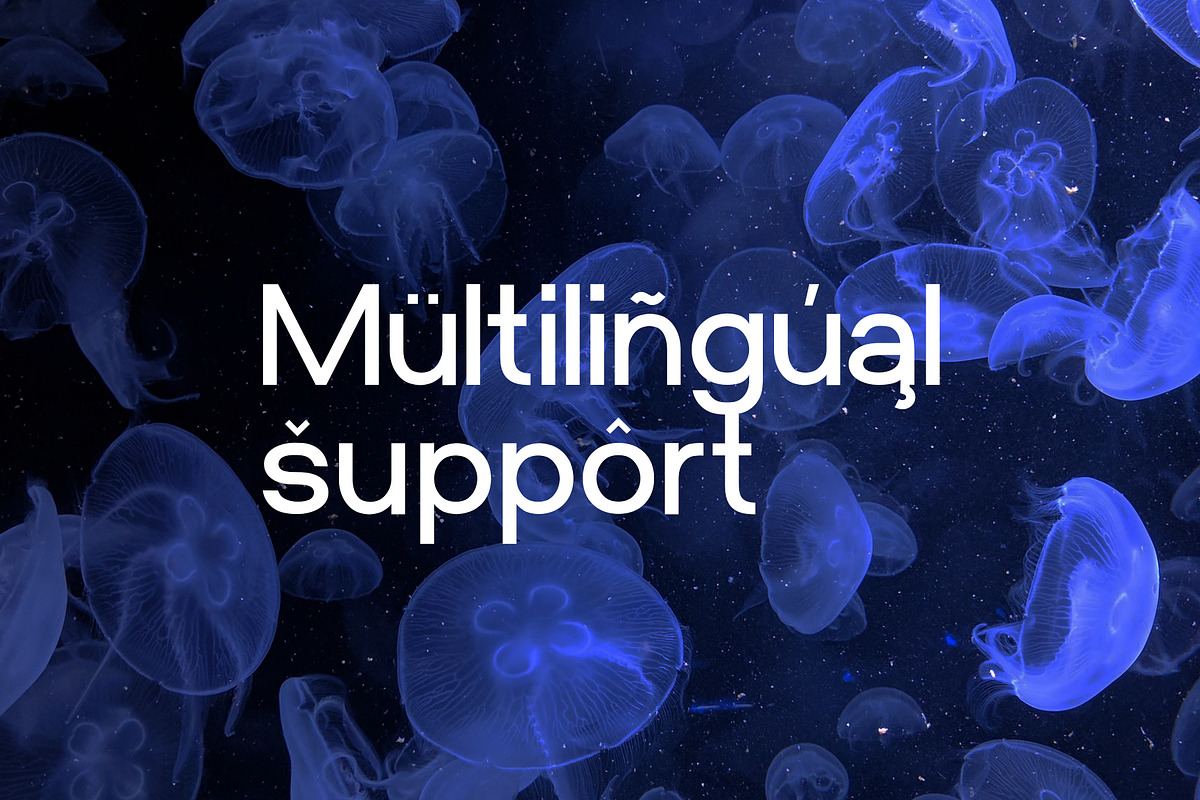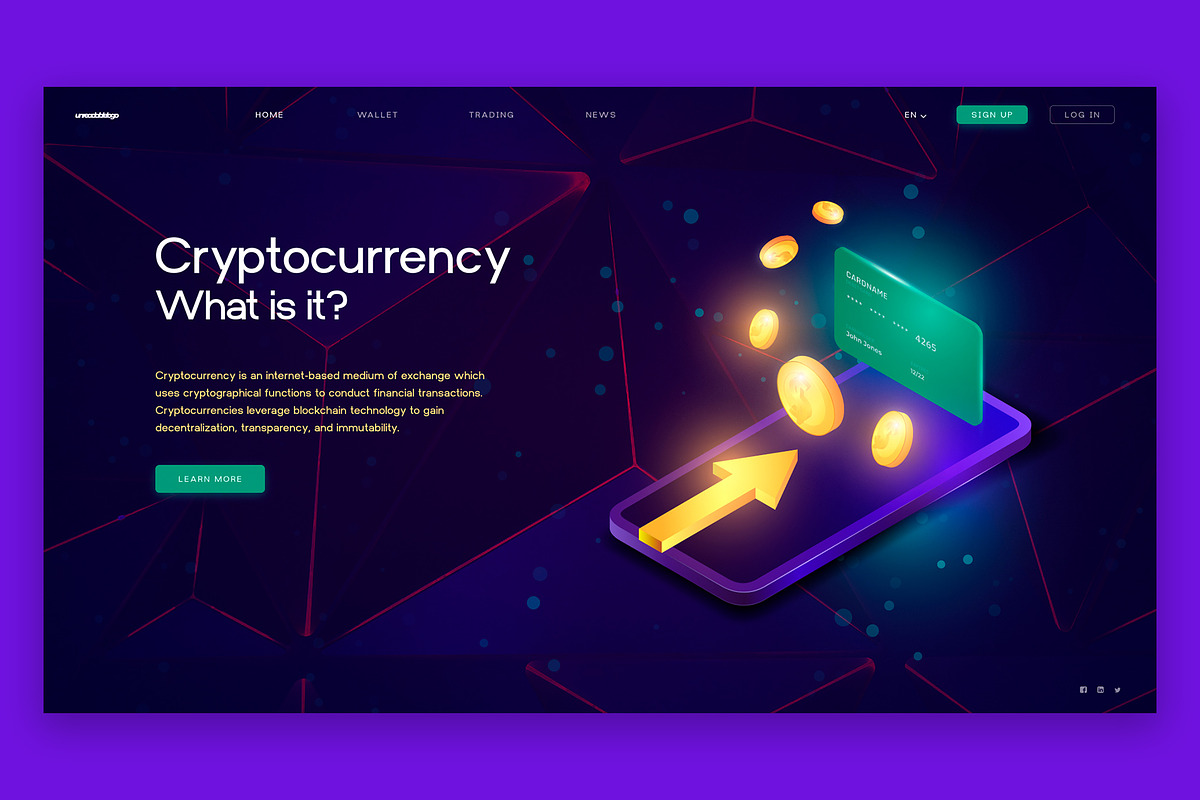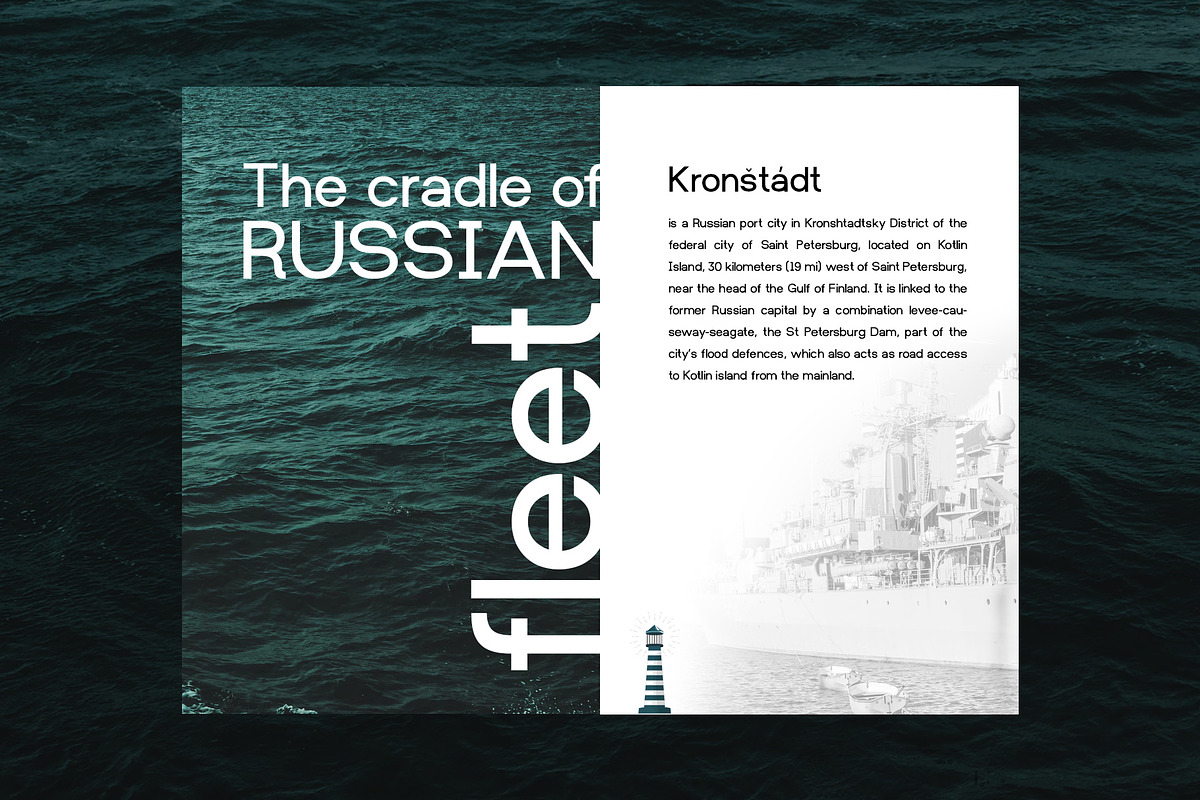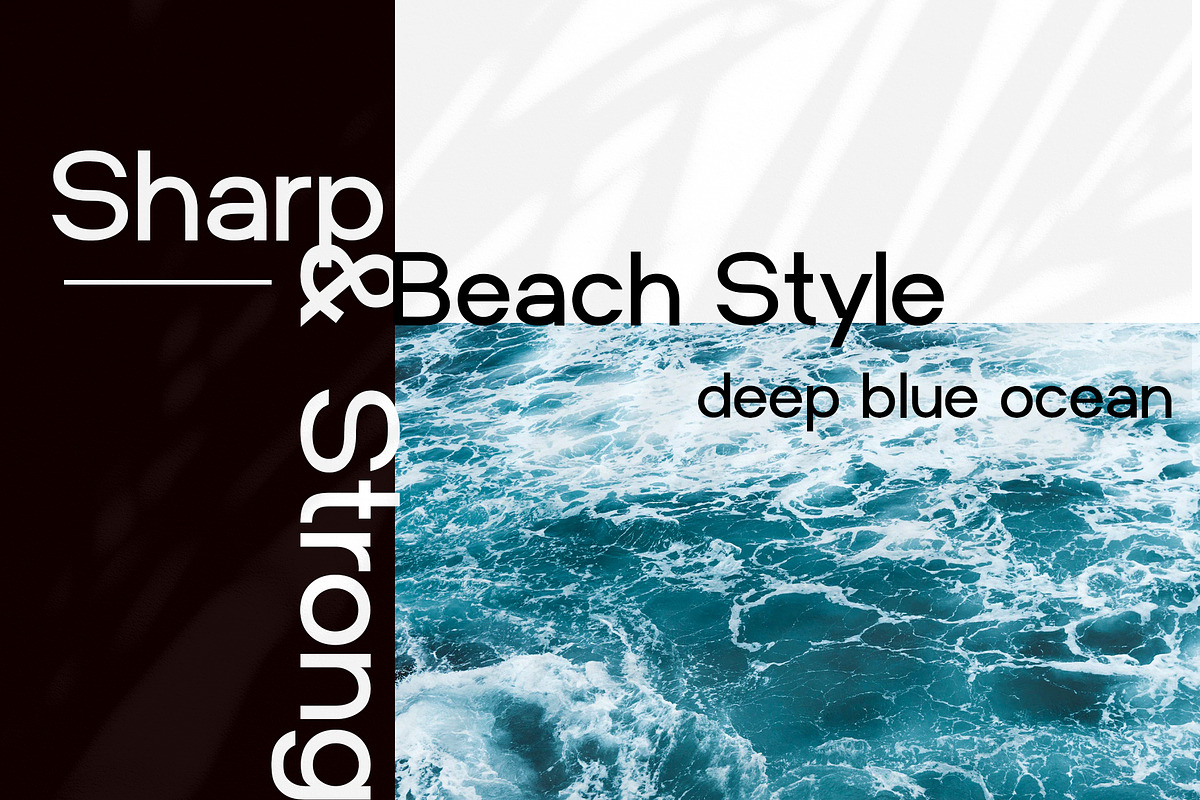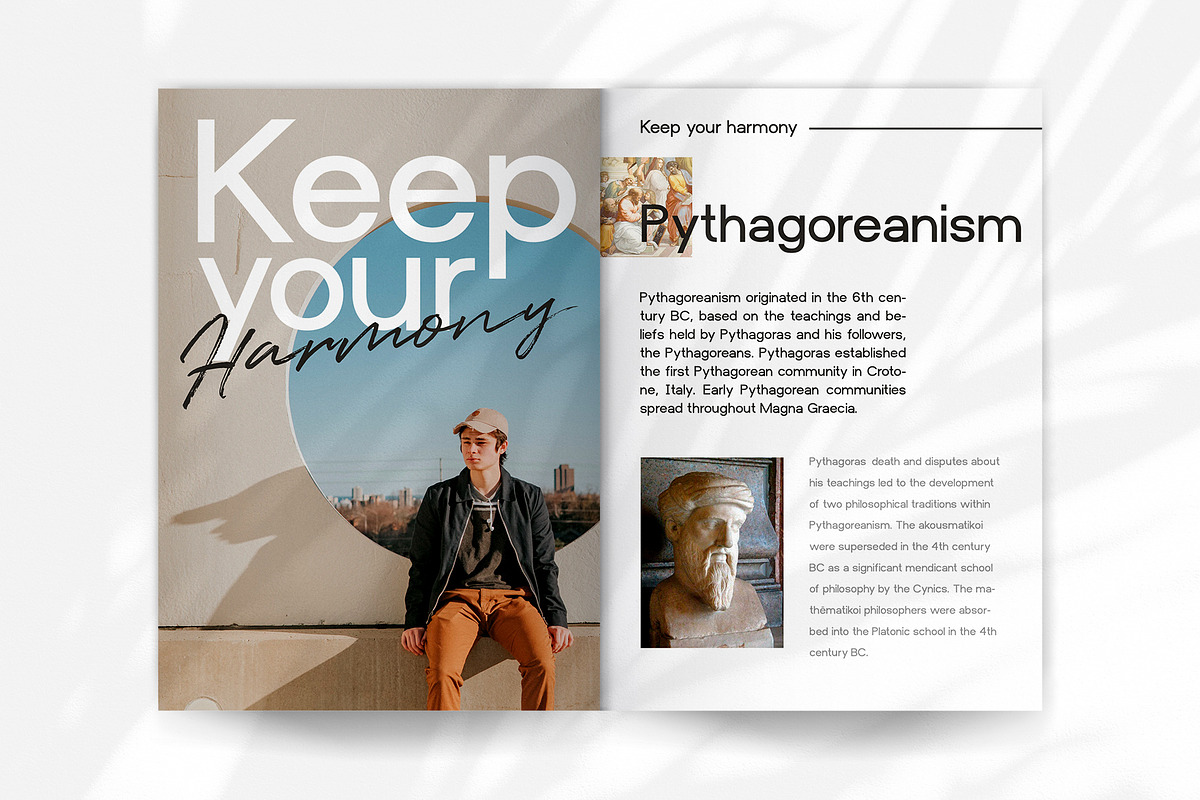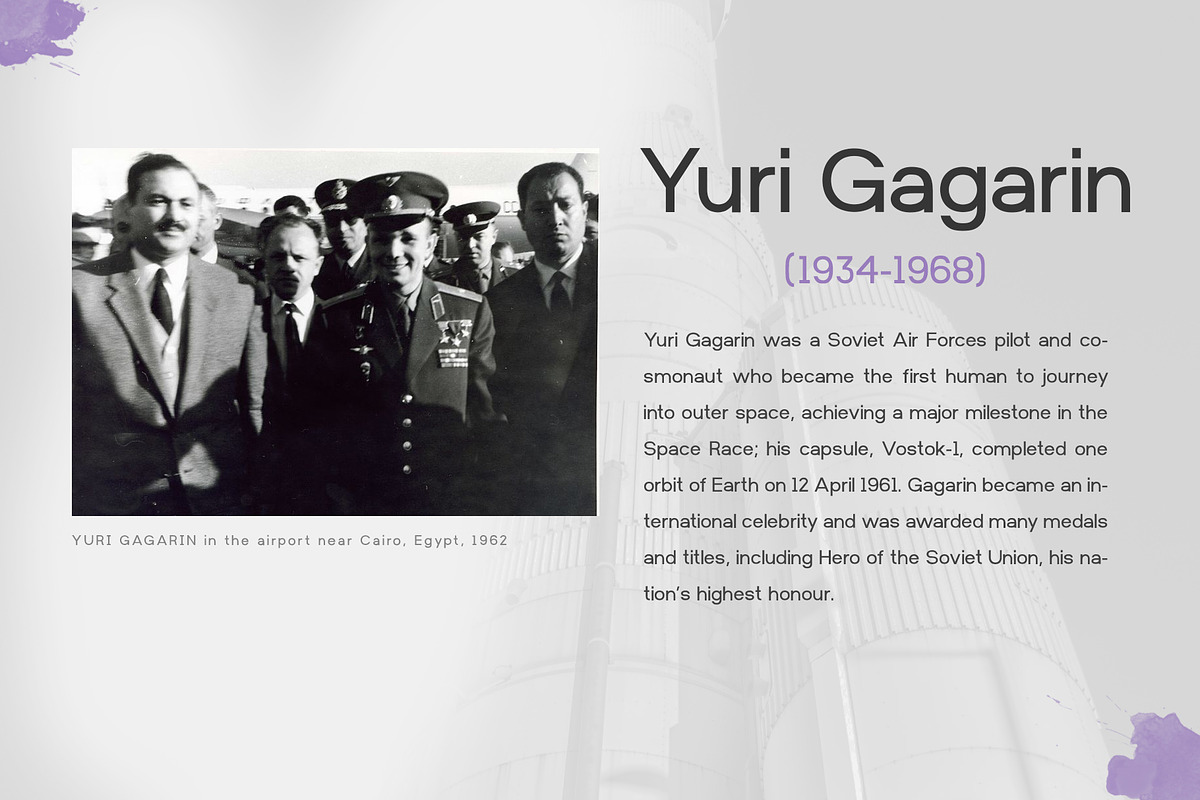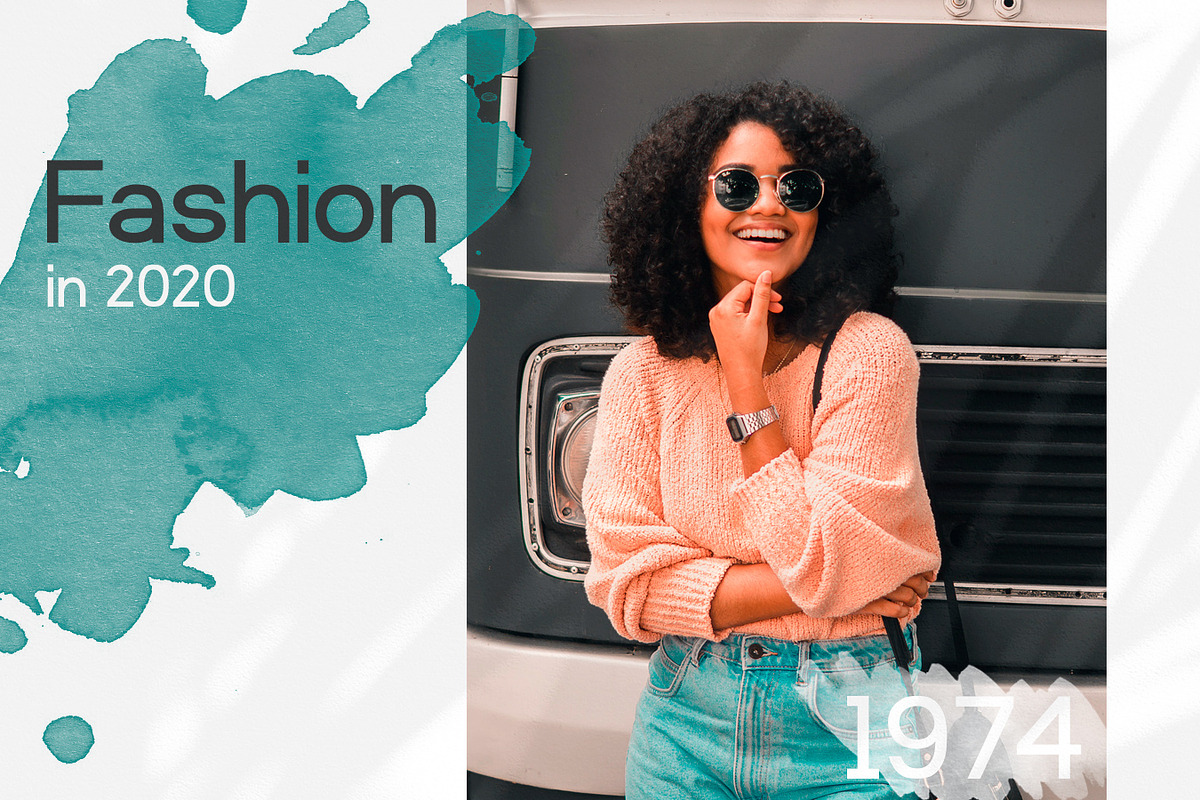
Kronshtadt - Sans Serif Typeface
I'm glad to introduce you Kronshtadt - sharp & strong sans-serif typeface. Inspired by wide fonts, Kronshtadt is designed to look strictly and authentically in logos, on signboards, in fashion magazines.
Web design? Kronshtadt will make your headline or body text bright and sharp. Wide uppercase is great for the top menu or buttons. Do not forget about the rounded and geometric lowercase. The main text looks appropriate and easy to read. Typography design? Yes! It is literally created to look at the brochure in a fashionable and organic way. Just combine it with some script fonts and you'll get 2020-looking of your design project.
Extensive Language Support